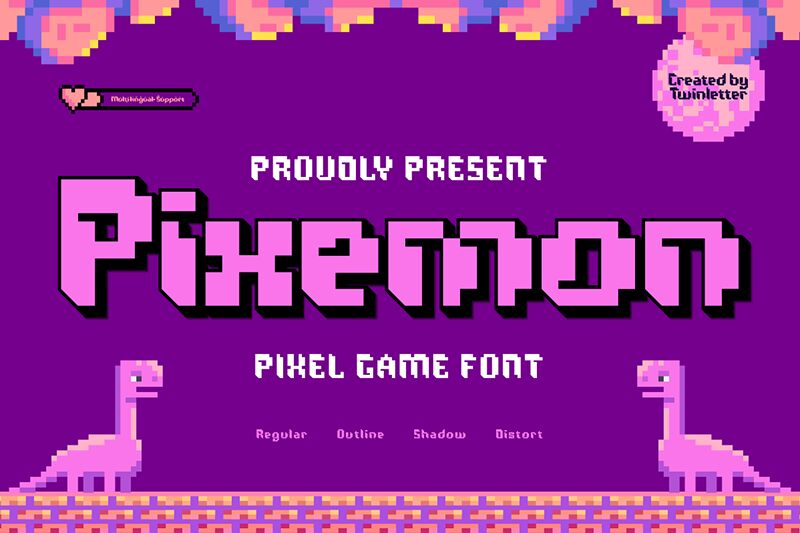
Pixemon, crafted by Twinletter, is a bold and expanded bitmap font that echoes the golden era of pixel art. Its pixelated style is a nostalgic nod to classic video games, making it an ideal choice for designers aiming to infuse their projects with a touch of retro charm.
With its robust weight and expanded width, Pixemon stands out in any digital landscape, offering versatility that excels in gaming interfaces, tech branding, and creative visuals seeking a distinctive 8-bit flair.
Embrace the unique aesthetic of Pixemon and let your designs make a statement that transcends time.